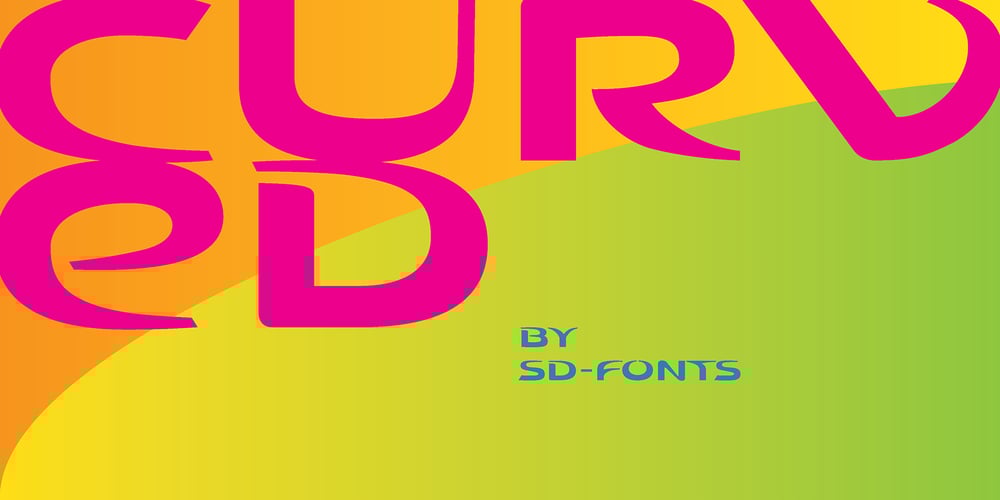
Curved Font Family was designed by Hartmut Schaarschmidt and published by SD Fonts. Curved contains 1 styles and family package options. Curved – a modern and dynamic one-case display font to boost headlines, logotypes and short text passages in a bold and unconventional, but friendly way.